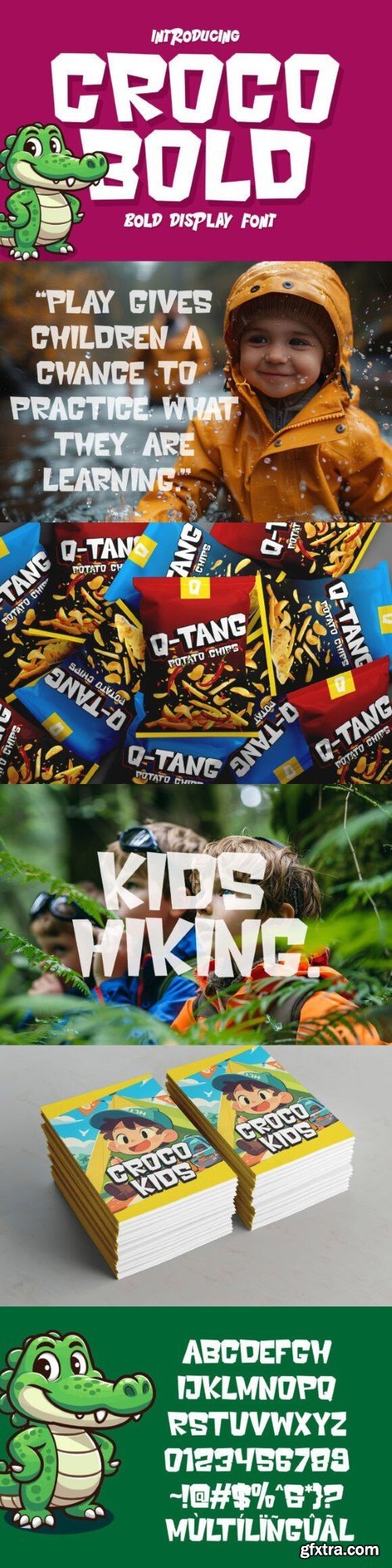
Croco Bold Font
Steeped in a daring spirit, Croco Bold flexes a muscular charisma befitting an attention-grabbing display font. Its power lies in its commanding, robust letterforms that rule the realm of headlines, posters, logos, and any branding expedition that craves a showstopper. With its sturdily constructed and hefty design, Croco Bold prioritizes both visual grandeur and optimal readability, distinguishing it as an adaptable choice across digital or print platforms. From the joyfully eccentric, through the avant-garde, to the stirringly inventive, this font ushers audacity and confidence into any design venture.